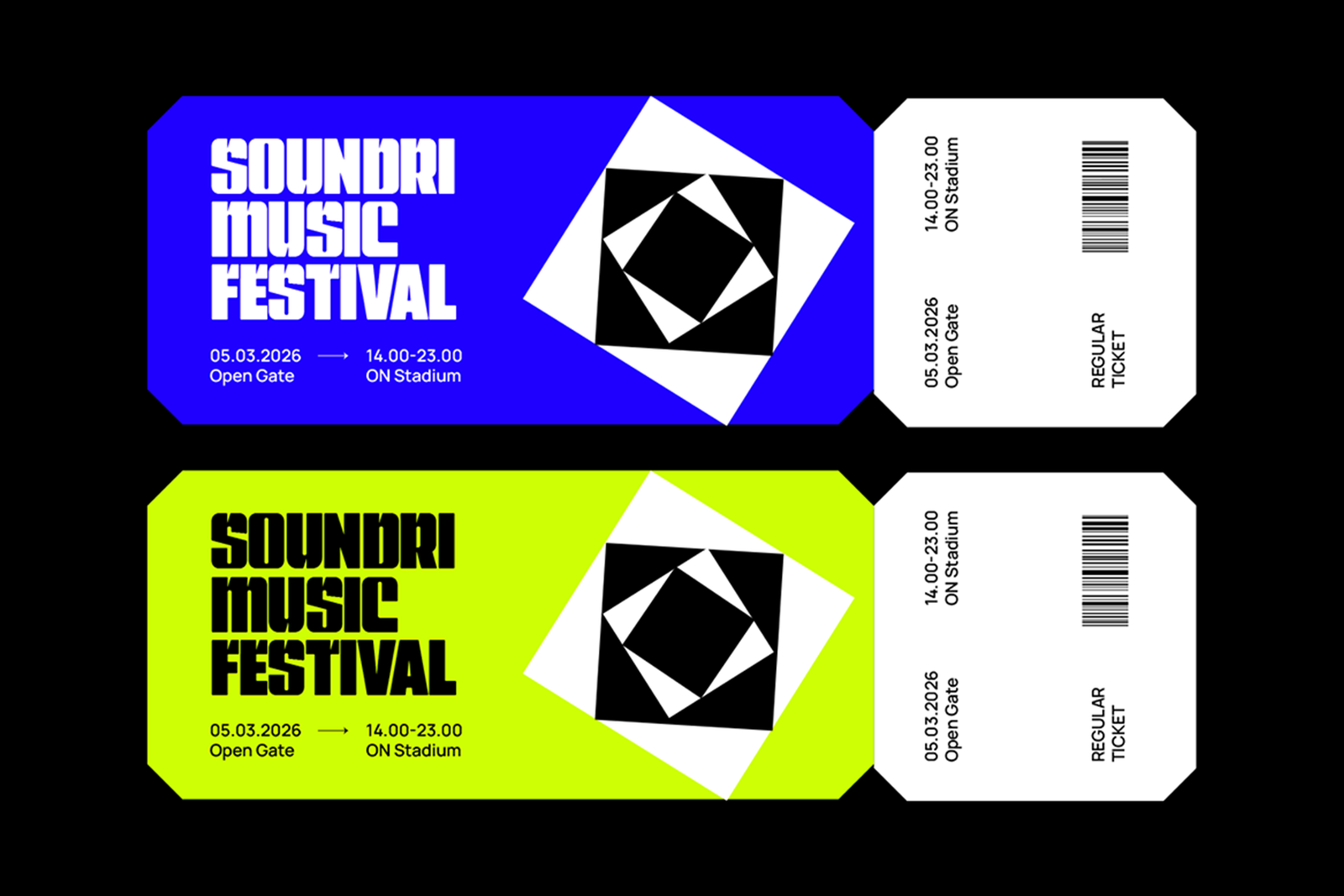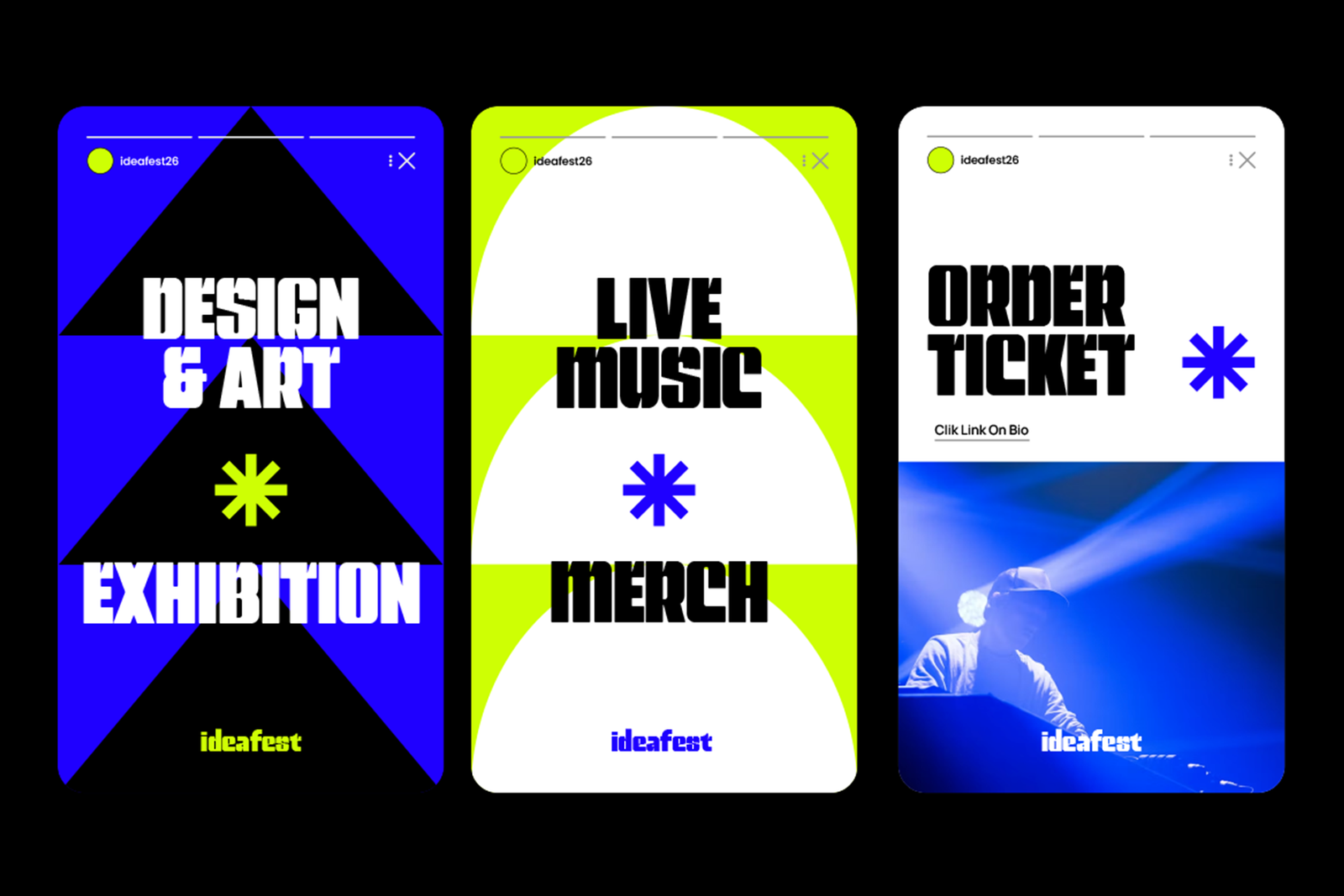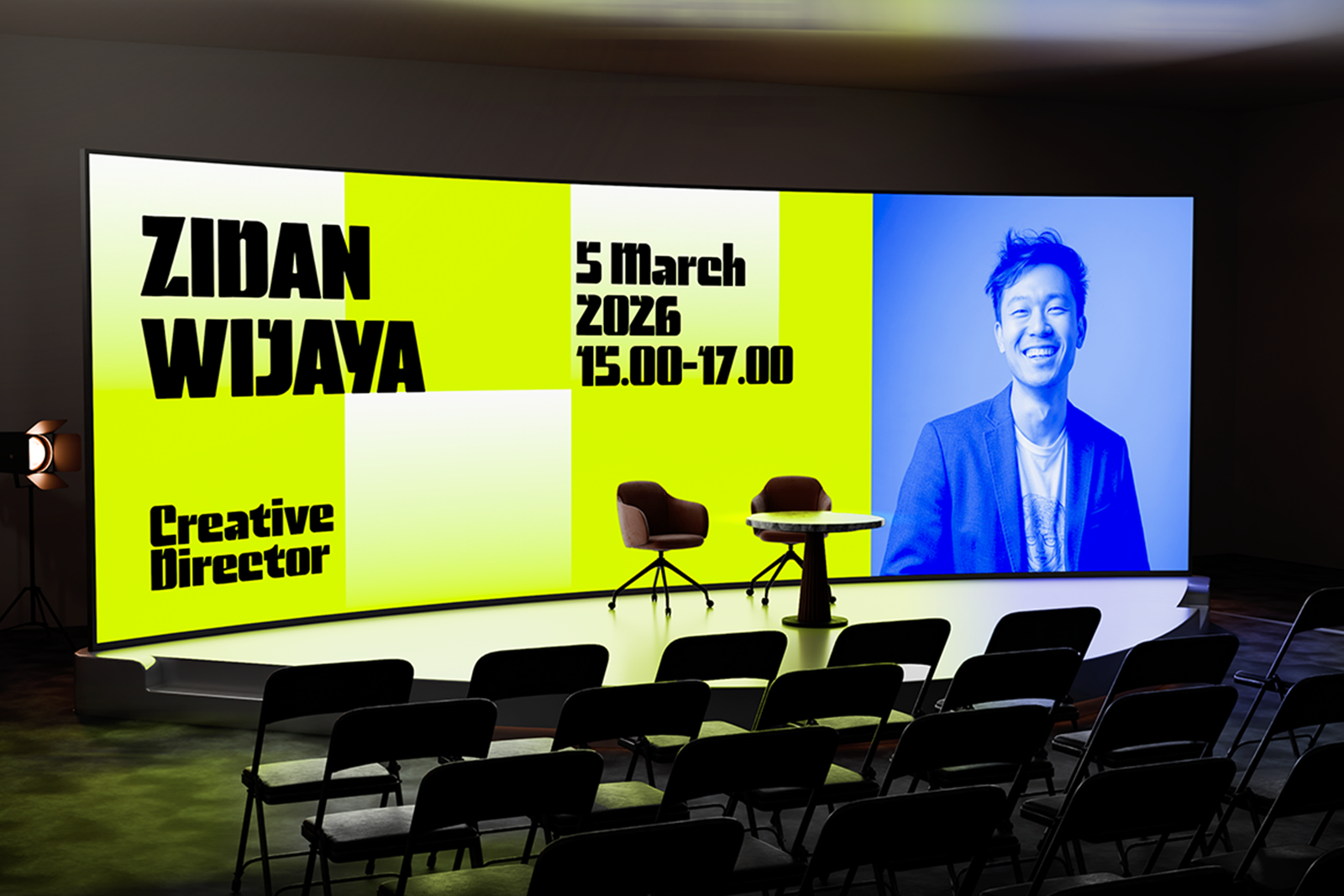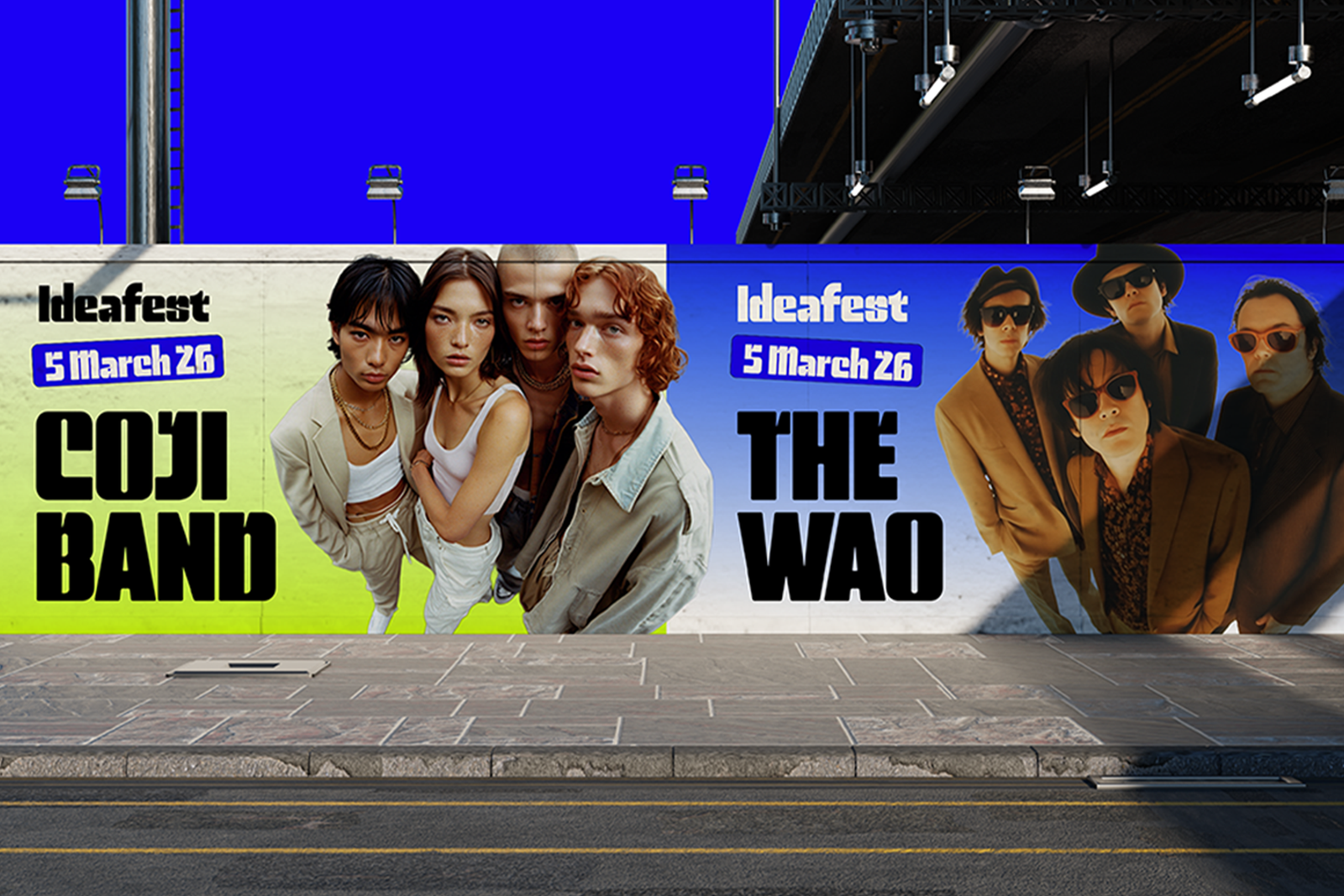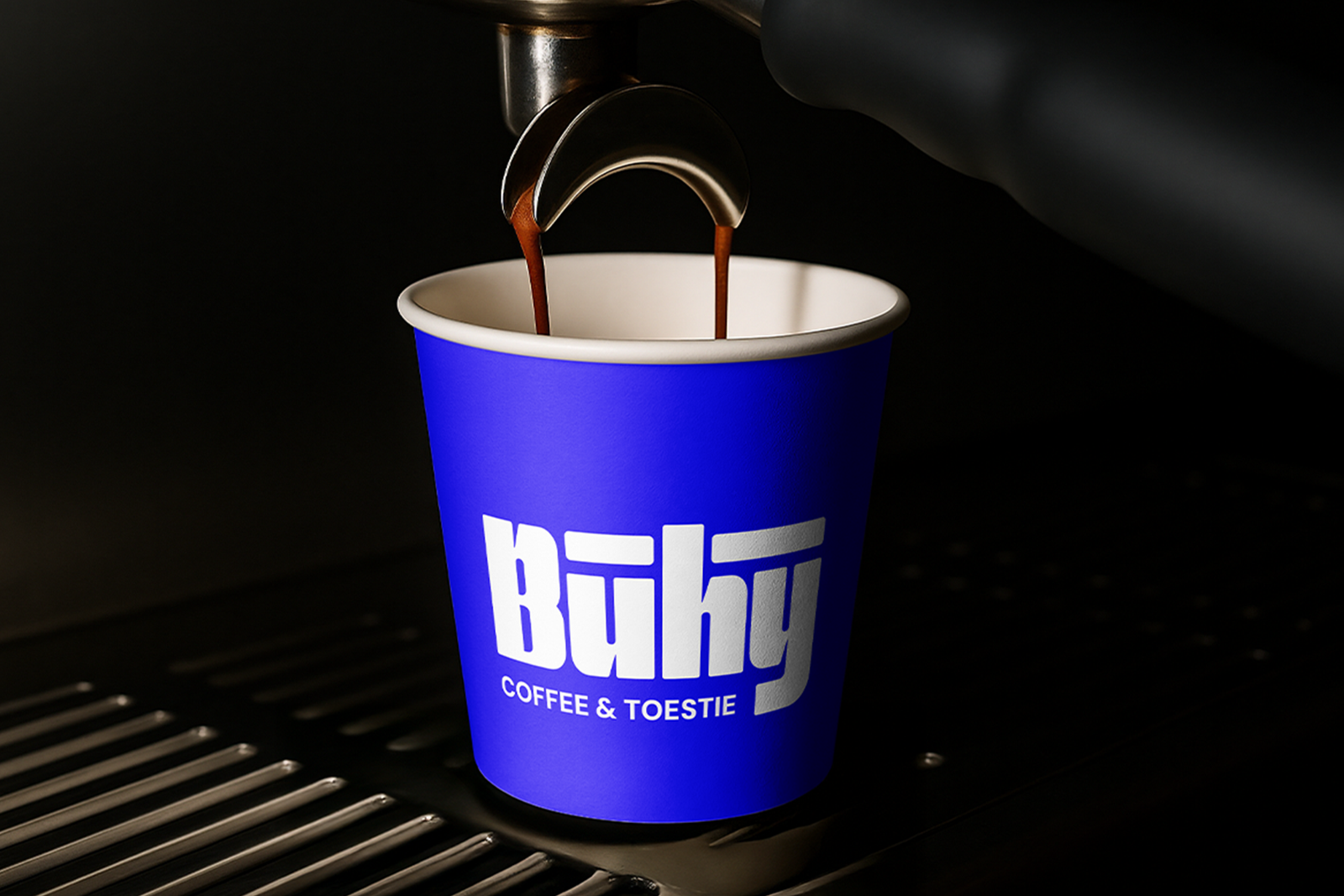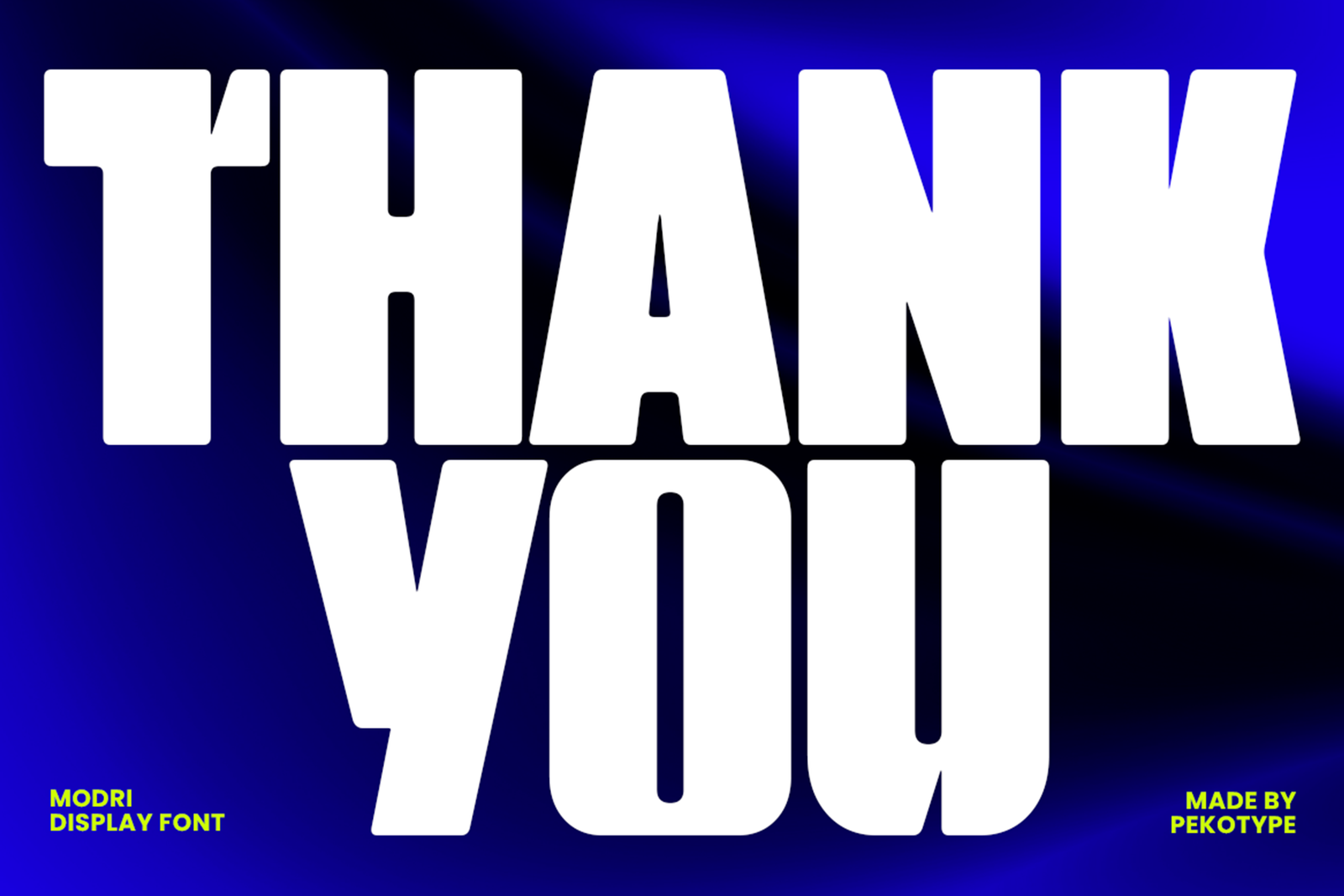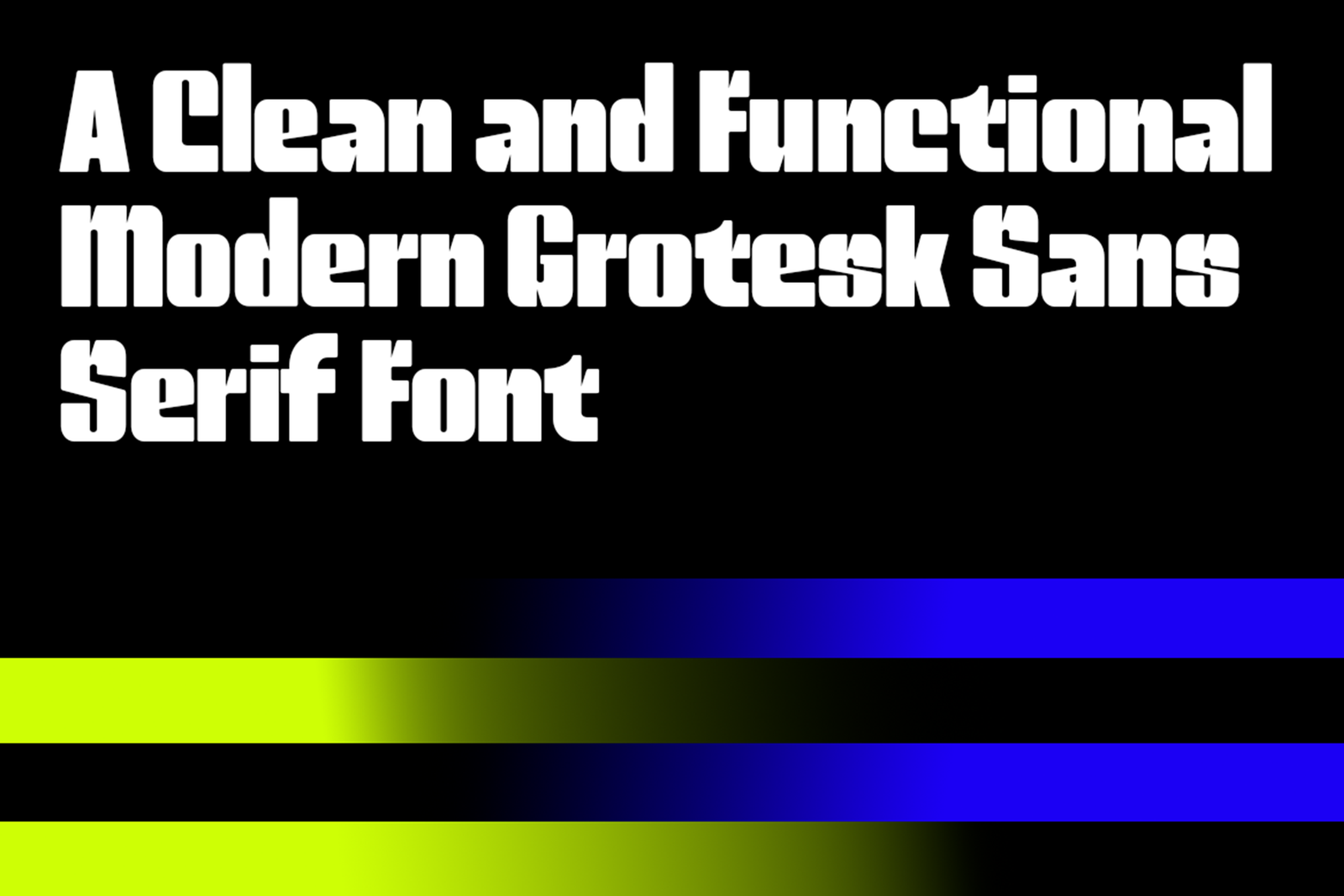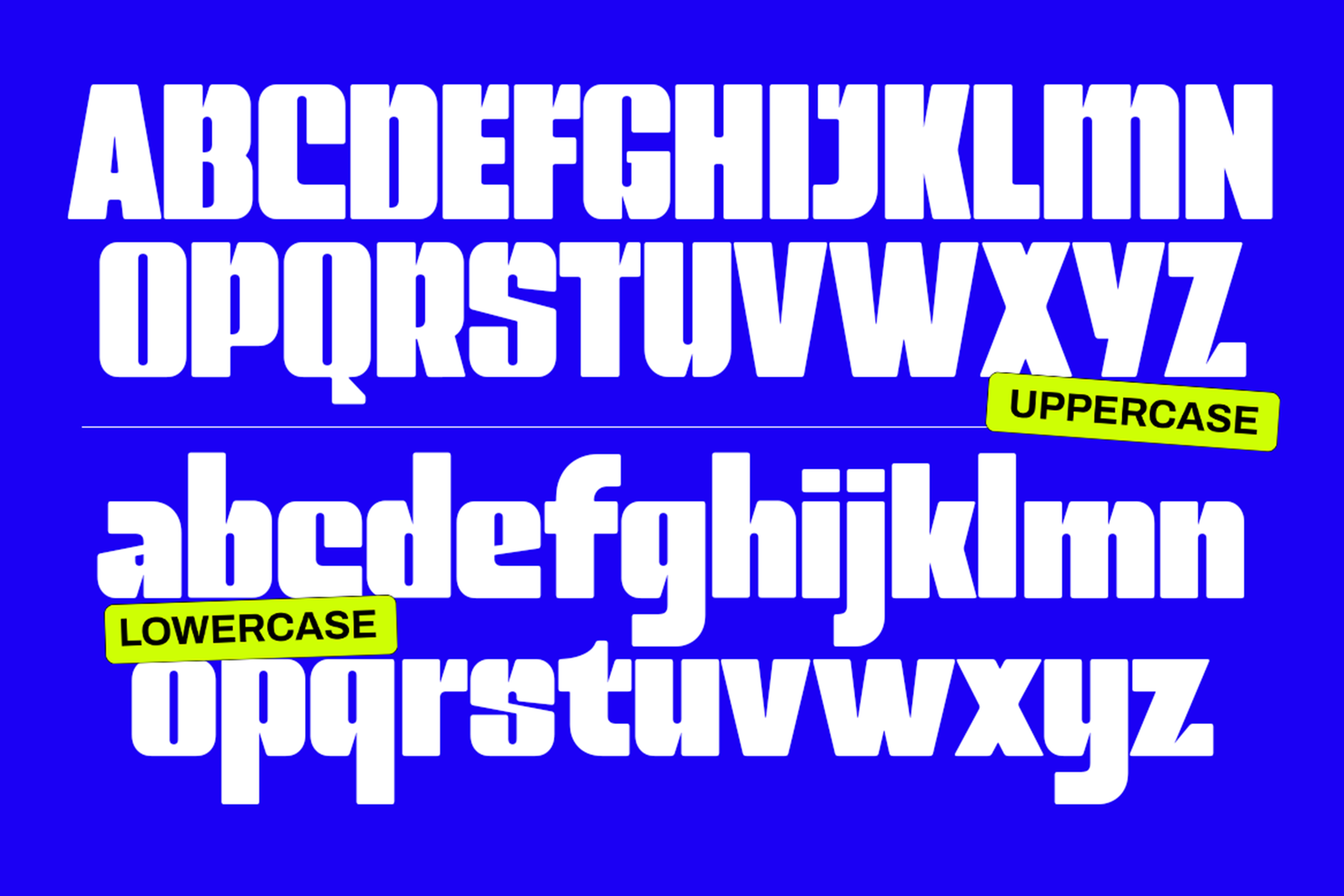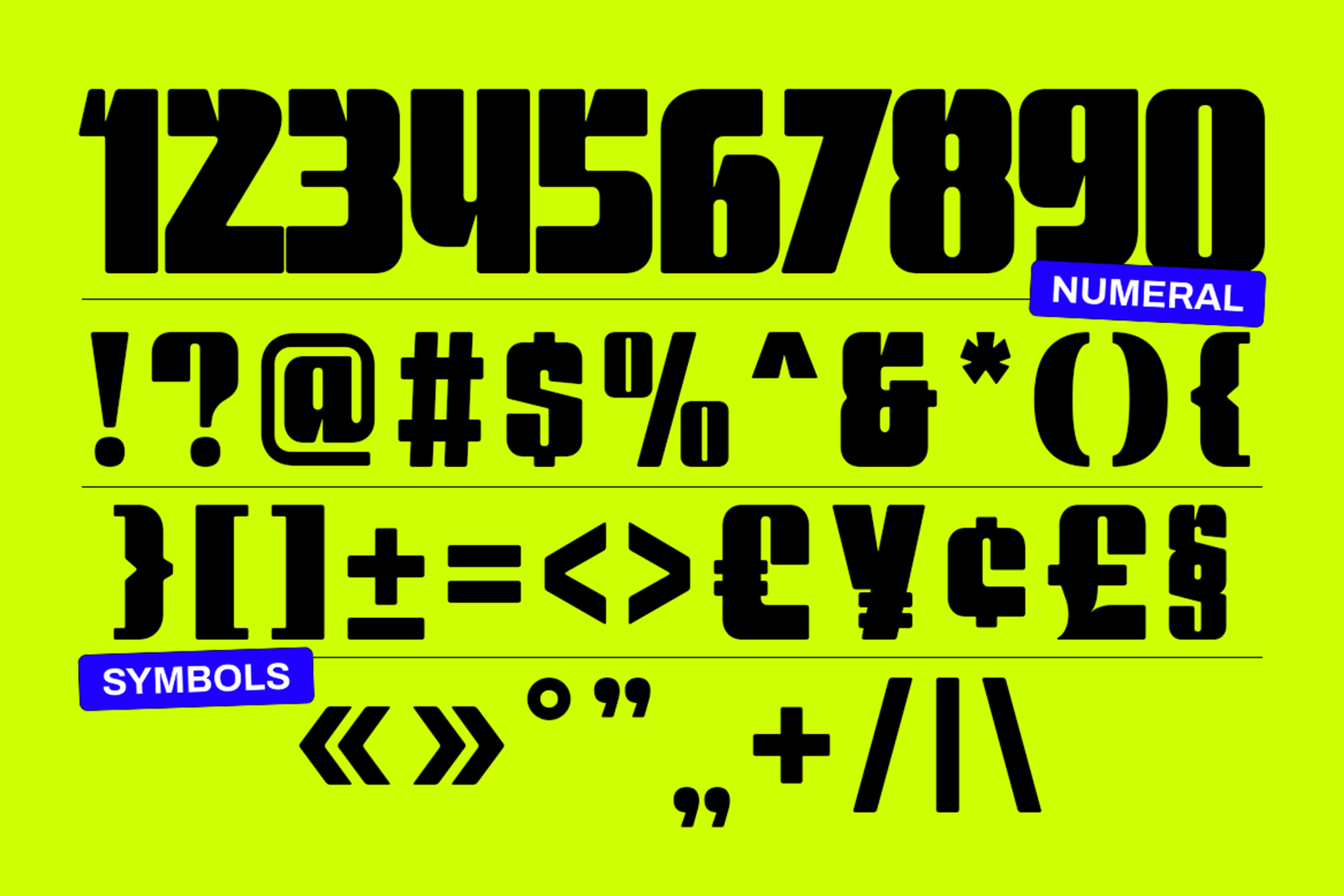
MODRI Font – Bold Modern Grotesk Sans Serif Typeface
MODRI Font is a bold modern grotesk sans serif typeface designed to bring a clean, strong, and confident look to creative projects. Its chunky letterforms, compact proportions, and structured shapes create a powerful visual presence while keeping the overall style simple and easy to read. The balanced design gives MONDRI a contemporary personality that works especially well for bold headlines and modern visual identities.This versatile font is perfect for branding, logos, posters, packaging, advertising, social media graphics, editorial layouts, signage, and digital campaigns. It also fits creative agencies, music events, fashion projects, technology brands, cafés, and lifestyle businesses. Whether you are creating a bold logo, promotional poster, website header, or product identity, MONDRI Font helps your design look modern, energetic, and memorable.The typeface includes uppercase and lowercase letters, numbers, symbols, punctuation, and multilingual support for flexible creative use. It is suitable for both digital and print projects, making it easy to build consistent branding across different applications. MONDRI Font is a strong choice for designers who want bold typography with a clean grotesk character, distinctive shapes, and a professional modern feel that stands out clearly across layouts, screens, posters, packaging, promotional materials, and other creative modern applications.
Features:- Uppercase and Lowercase
- Number, Symbol, & Punctuation
- Multilingual